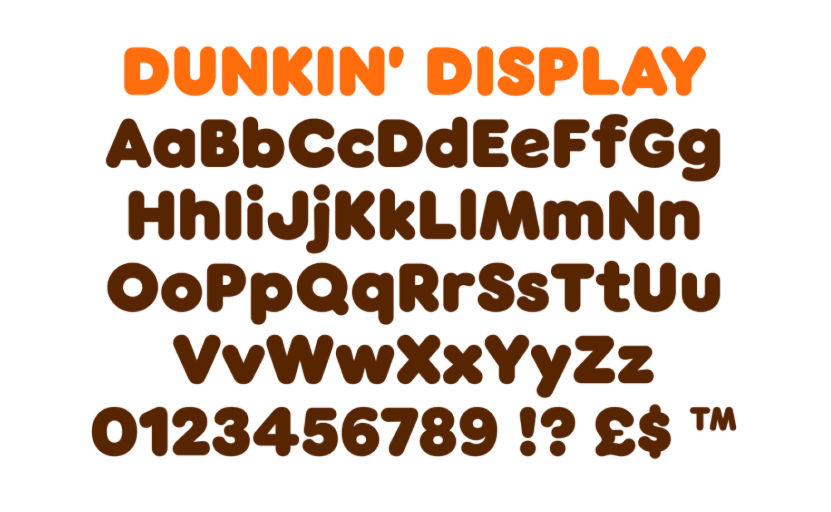
The Dunkin’ Donuts font is one of the most recognizable typefaces in the branding world, instantly evoking the fun, energetic, and inviting spirit of the coffee and donut giant. For decades, the brand’s bold typography, paired with its signature pink and orange color scheme, has played a major role in shaping its identity. Originally designed with a rounded, bubbly style that reflected warmth and friendliness, the Dunkin’ Donuts font has evolved alongside the brand’s modern rebranding efforts. Today, whether on store signage, packaging, or digital platforms, this iconic typeface continues to capture attention and communicate the playful yet reliable nature of the Dunkin’ experience.
What is Dunkin’ Donuts Font
The American font-taking company Pixel Sagas presented its Dunkin’ Donuts Font to the public in 2012. Neale Davidson and Shayna Davidson, as font designers, spent many hours developing this typeface, which precisely adhered to the form of the Dunkin’ Donuts logo design. The designed typeface achieved a unique family of fonts that were officially named the Dunkin’ Donuts Font.
Features Of The Dunkin' Donuts Font
The Dunkin’ Donuts font has several distinctive features that make it unique and instantly recognizable:
- Rounded and Bold Lettering
Creative font elements and bold strokes within the design elements define its distinctive appearance from different viewing distances.
- Retro Yet Modern Appeal
Despite its lengthy history, the font proves itself as enduring because it appears both sentimental and modern.
- Playful and Friendly Vibe
Dunkin’s brand image is reflected through its bubbly reports, which project a fun and energetic, and welcoming atmosphere.
- Highly Legible
Excessive noise threatens communication between passengers and airline staff, requiring bold fonts to ensure signs and packaging, and advertising are easily read.
- Strong Brand Association
The brand identity of Dunkin has grown inseparably linked with the typeface, leading to its essential role in the company’s marketing achievement.
Applications Of The Dunkin' Donuts Font
The Dunkin’ font is used across various brand touchpoints, reinforcing its identity and recognition. Here are some of its key applications:
- Logo and Signage
The font prominently appears in the Dunkin’ logo, storefronts, and signage, ensuring brand consistency.
- Packaging
Dunkin uses fonts in all its packaging materials to develop a consistent visual representation that appeals to customers.
- Advertising and Marketing Materials
The brand maintains consistency through the application of this font across all its digital advertisements, as well as social media content, and both television and outdoor billboards.
- Merchandise
Brands use their specific font on t-shirts and mugs alongside other merchandising products to deepen brand dedication among their customers.
- Website and Mobile App
The Dunkin’ website and mobile app use variations of the font to keep branding consistent across digital platforms.
Alternatives Of The Dunkin' Donuts Font
The following options are alternative fonts which capture Dunkin’s friendly and lively character:
- Frankfurter
Frankfurter stands as the most fitting font substitute for Dunkin’ Donuts because it maintains rounded and bold characters that deliver a playful design.
VAG Rounded has soft curves and a modern feel, making it a great alternative for friendly branding.
This font is bubbly, playful, and informal, making it ideal for designs that need a lighthearted touch.
Cooper Black is a bold and slightly retro serif font with a warm, friendly feel, making it somewhat similar in personality to Dunkin’s typography.
Baloo is a rounded, contemporary sans-serif font that captures the same friendliness and readability as Dunkin’s font.
Conclusion
Dunkin’ Donuts font forms an essential part of the identity of the brand as it functions as one of the primary identifiable factors of the chain to the customers across the globe. This is a powerful and curvy font based on the Frankfurter typeface that gives a friendly and approachable tone, which fits perfectly into the marketing strategy of Dunkin. As far as the designers, marketers, and even devoted fans are concerned, discussing how the Dunkin Donuts font contributes to the design of a brand image can serve as a viable piece of learning the significance of typography in the development of long-lasting relationships.